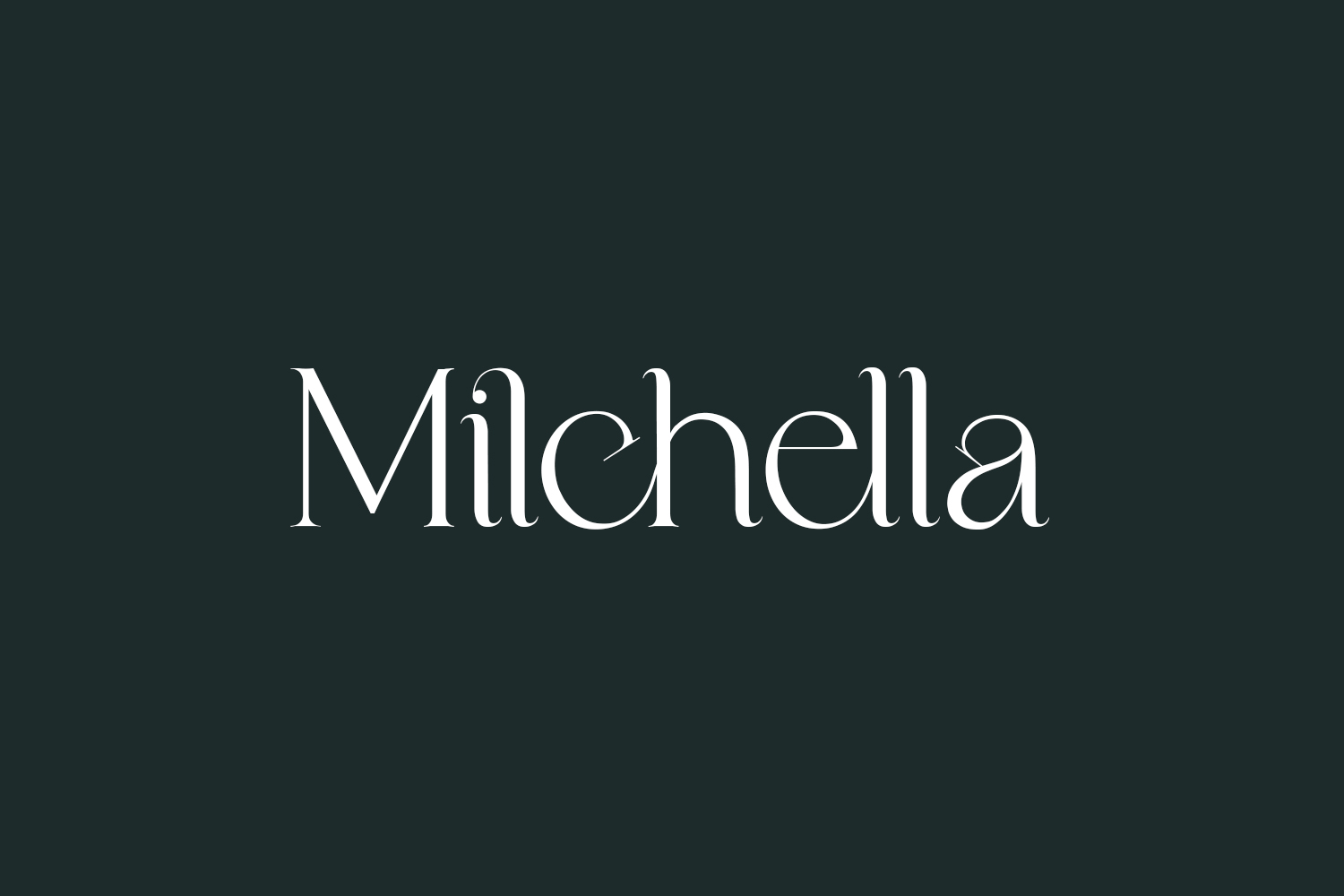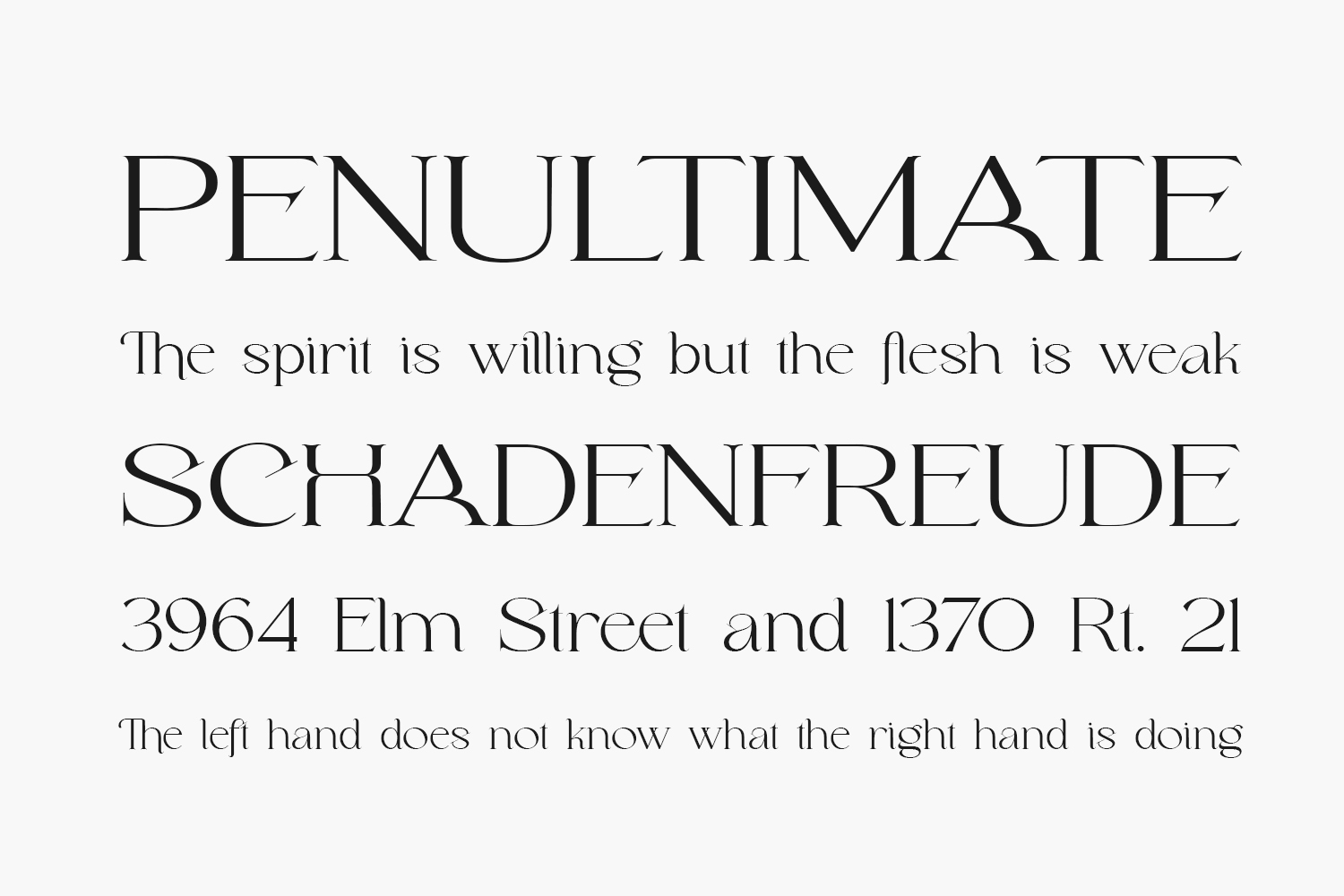
Milchella Free Font is a slim, elegant and stylish serif font. Milchella Free Font is free for personal use only. Please purchase the full version for commercial use.
Designed by Ronny Studio